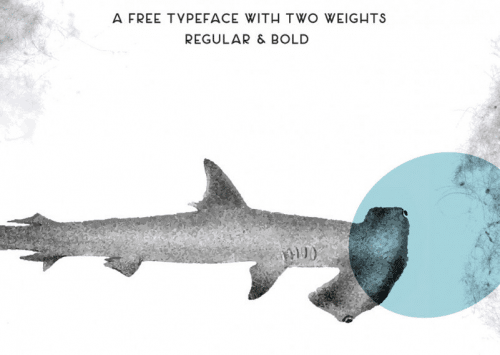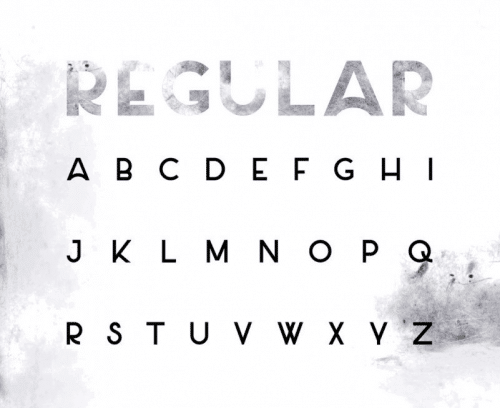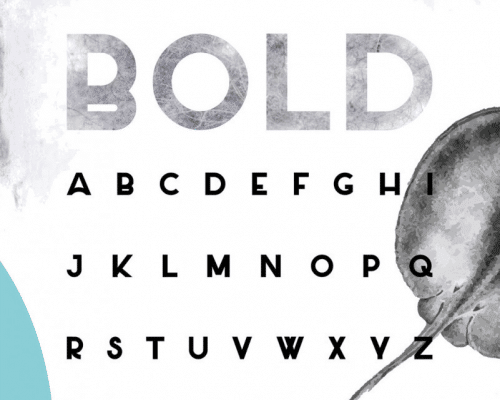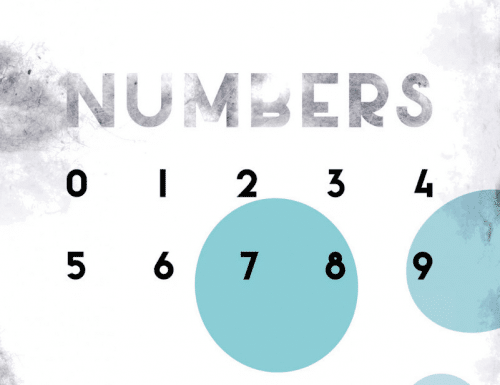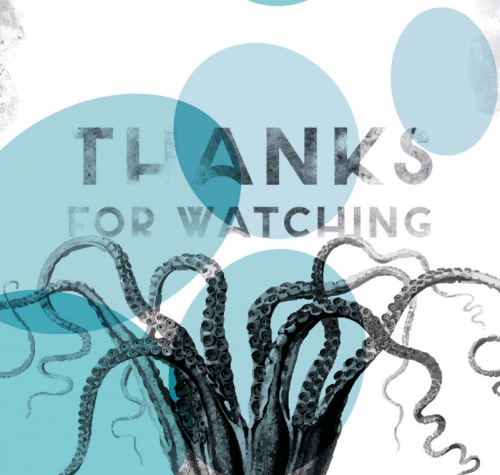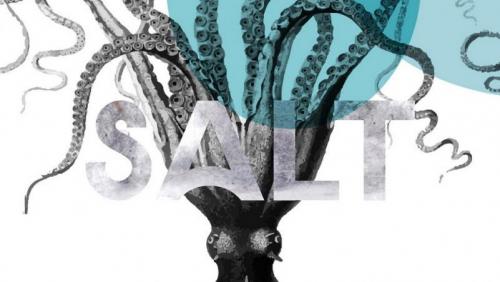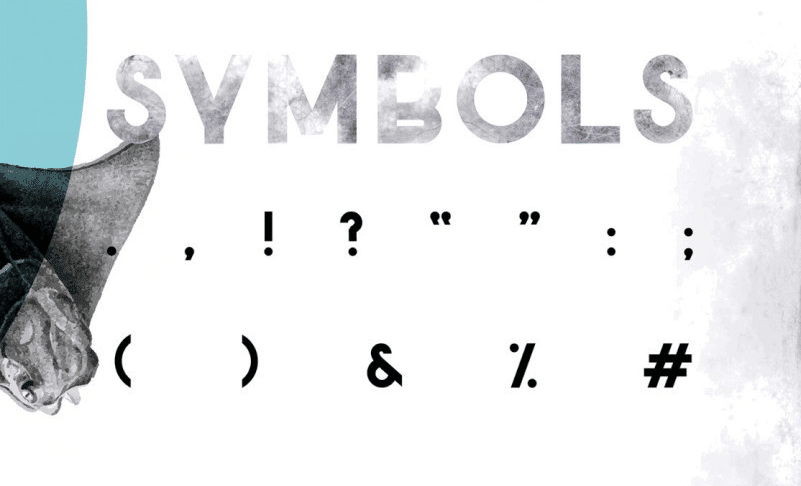
Salt Typeface is a beautiful sans serif font with a contemporary feel. Get inspired by its timeless and classic appeal. If you are looking for letters with attitude, Salt Font is the perfect fit.
Salt Sans Serif Font with a structural logic of its own: a fusion of pure geometry and optical balance. Font is suitable for Logo, greeting cards, quotes, posters, branding, name card, stationary, design title, blog header, art quote, typography.